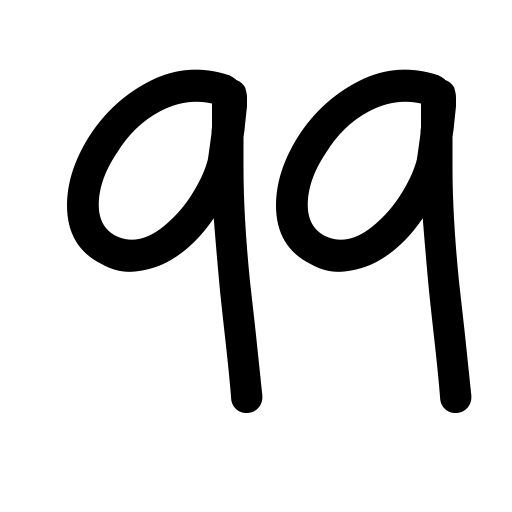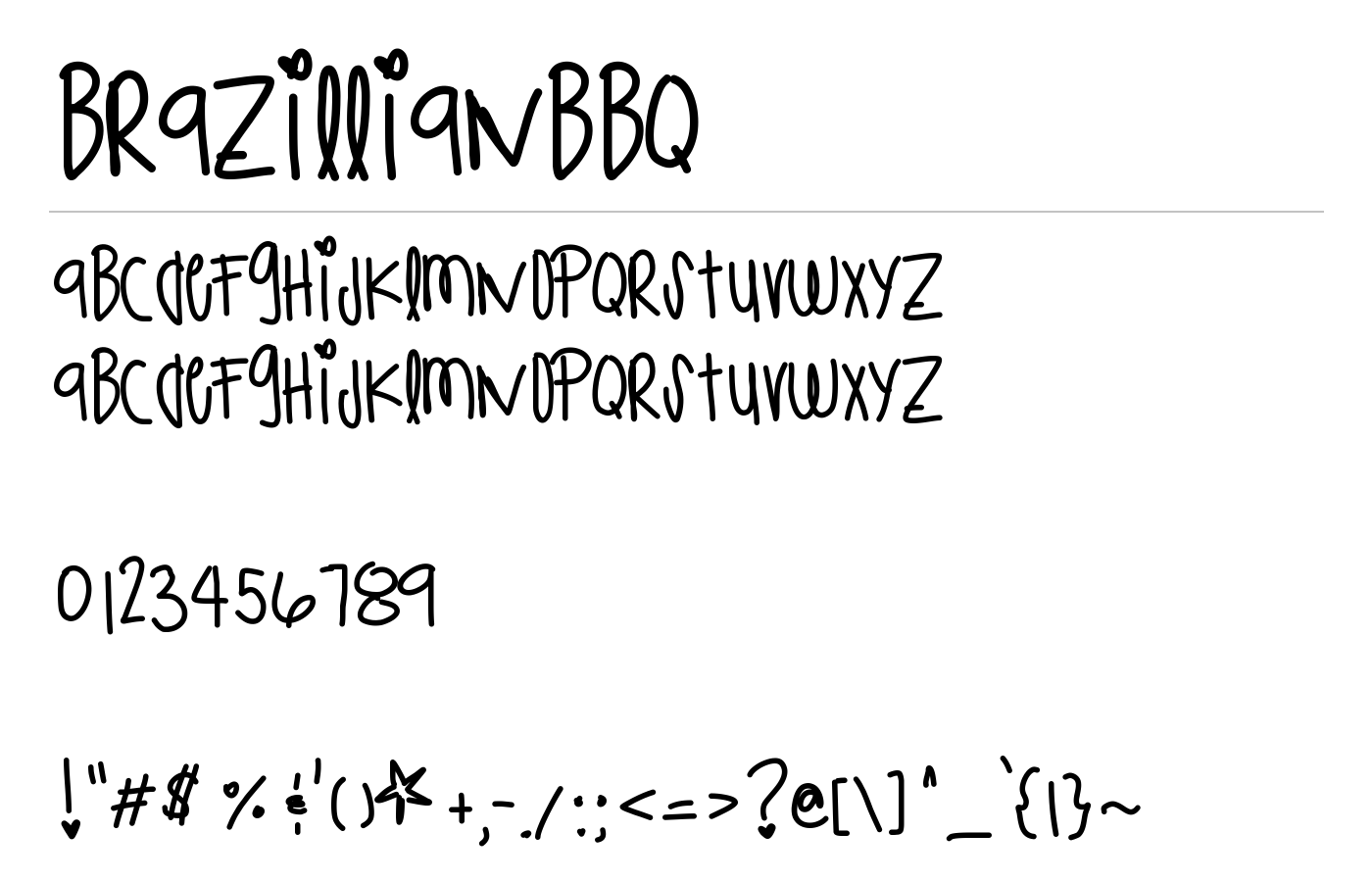
BrazillianBbq is a playful and casual handwritten font with tall, narrow letterforms and quirky heart-shaped dots on the i’s, giving it a fun and friendly personality. Its uneven strokes and informal style make it perfect for projects that want to convey warmth and creativity, such as invitations, children’s materials, or lighthearted branding. This font works best in headlines or decorative text where a unique, personal touch is desired.
BrazillianBbq Font
About BrazillianBbq Font